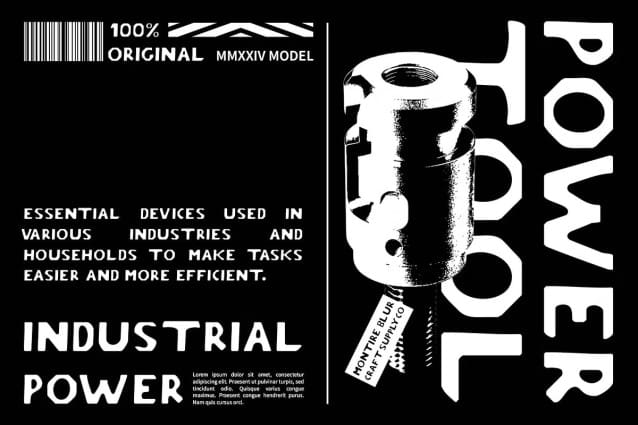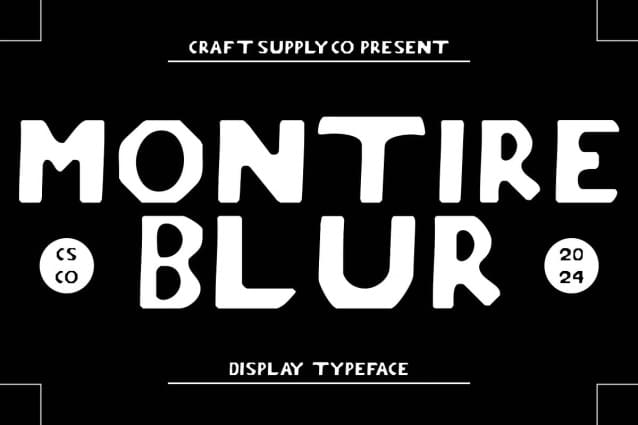
Montire Blur Font
Montire Blur Font is a sans-serif font with an industrial style and a unique blur effect, perfect for display purposes. Its robust and edgy design makes it ideal for projects that demand a strong visual impact.
With its versatile design, Montire Blur Font is suitable for a variety of uses, including headlines, posters, and branding. Its industrial style adds a touch of ruggedness, while the blur effect introduces a distinctive and modern twist.
Montire Blur Font prioritizes visual interest, ensuring that your designs stand out from the crowd. Whether used in print or digital media, this font adds a dynamic element that captivates viewers and adds a touch of intrigue to your projects.
Whether you’re designing a banner, a website, or a marketing campaign, Montire Blur Font is the perfect choice for projects that require a bold and modern aesthetic. Its unique blend of industrial strength and subtle blur ensures that your work will always look striking and contemporary.